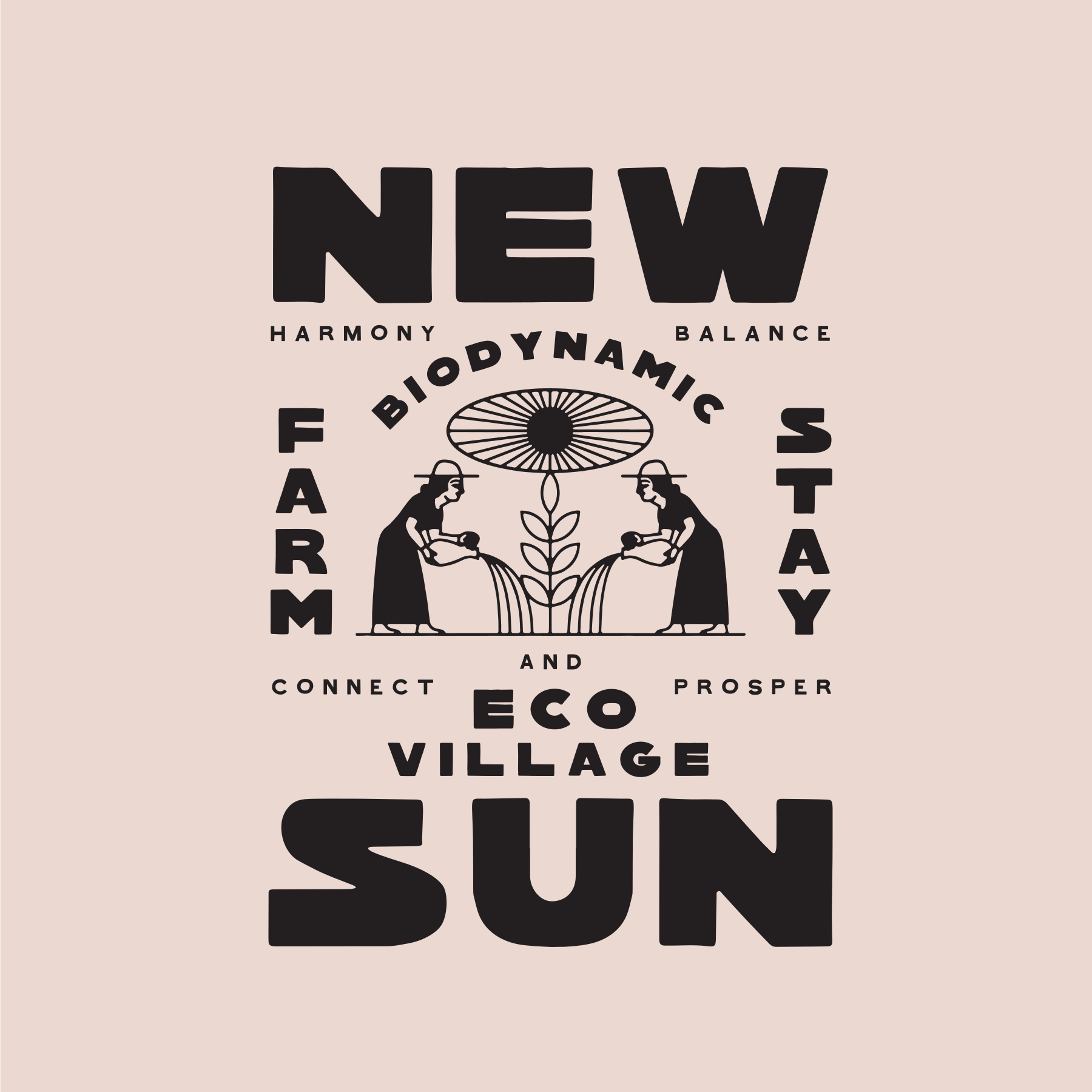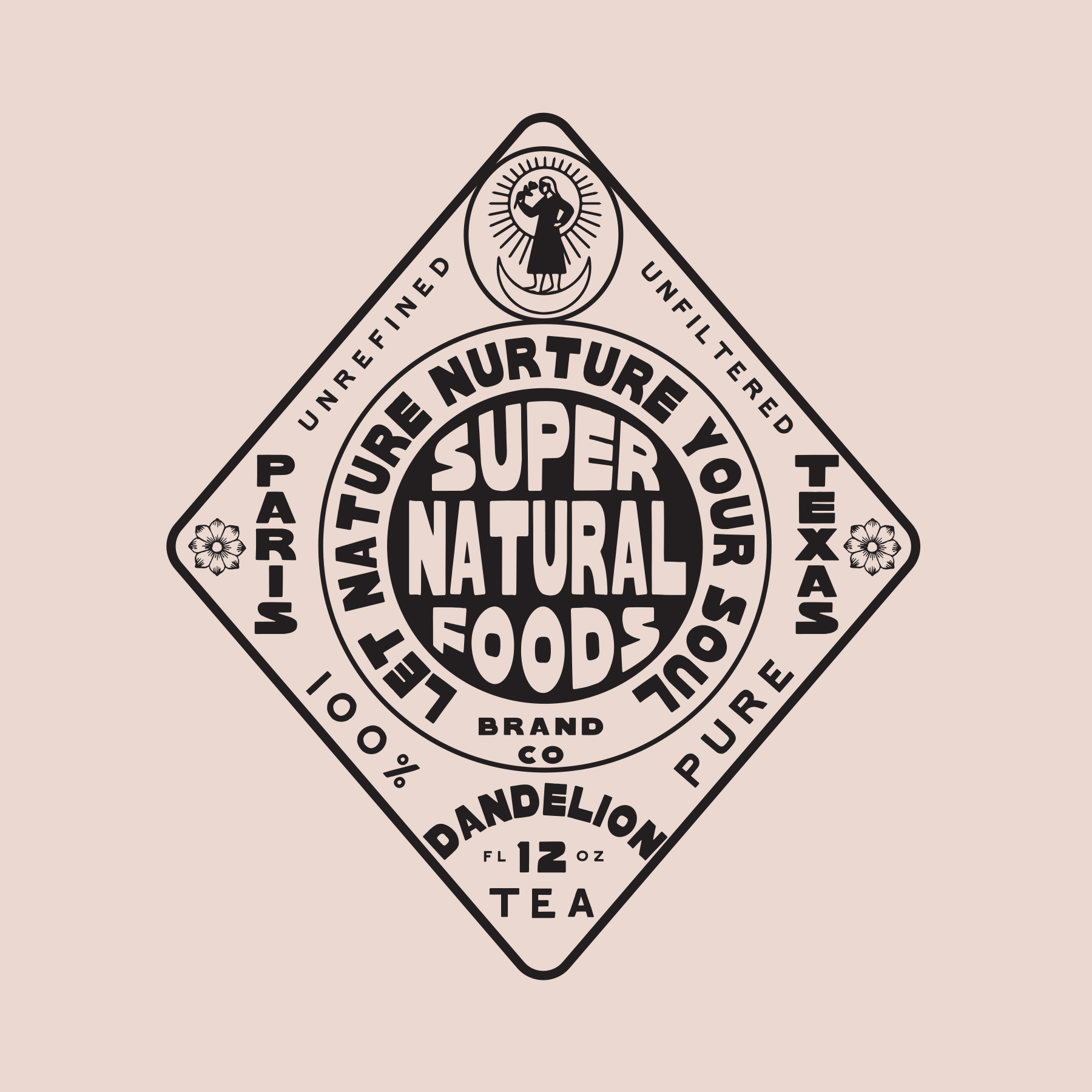
Corsicana
Corsicana covers a lot of ground. At times it drifts us away into the past when mono-weight blocky type covered the dusty red bricks of old Main Street. Then it pulls us back into current times where we all hunger for more of the human hand. Inspired simultaneously by Americana signpainter utopias and Latin American modernism, Corsicana can take you anywhere you long to be.